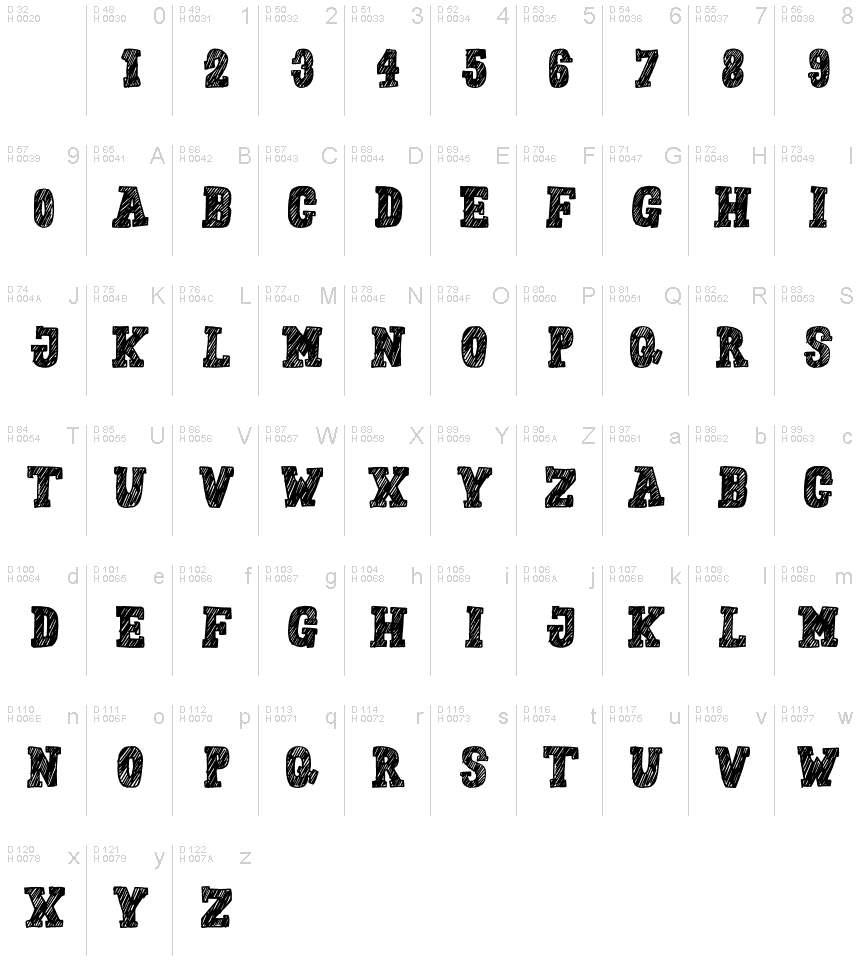
Handrawn Color Kid
Handrawn Color Kid is a bold and cartoon-style display font designed by Orked. With its unique handrawn look, it is perfect for creating eye-catching graphic designs and artwork. You can use this font to create fun, playful logos, banners or even social media posts that stand out from the crowd. It's also great for creative projects such as children's books and school assignments. Let your creativity run wild with Handrawn Color Kid!